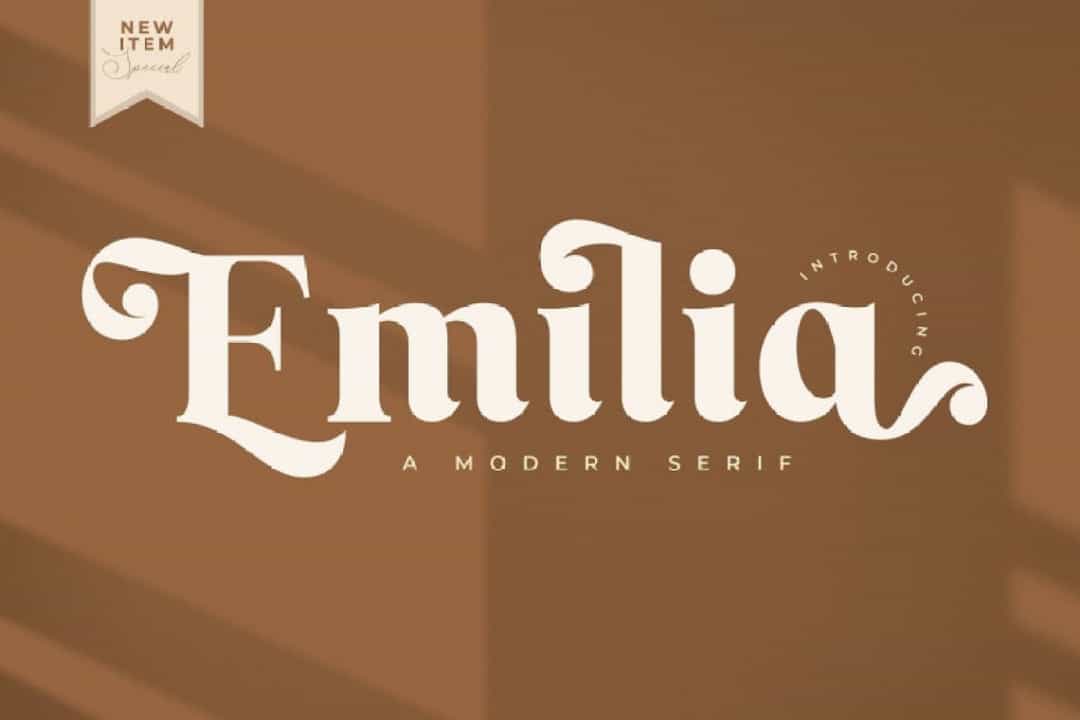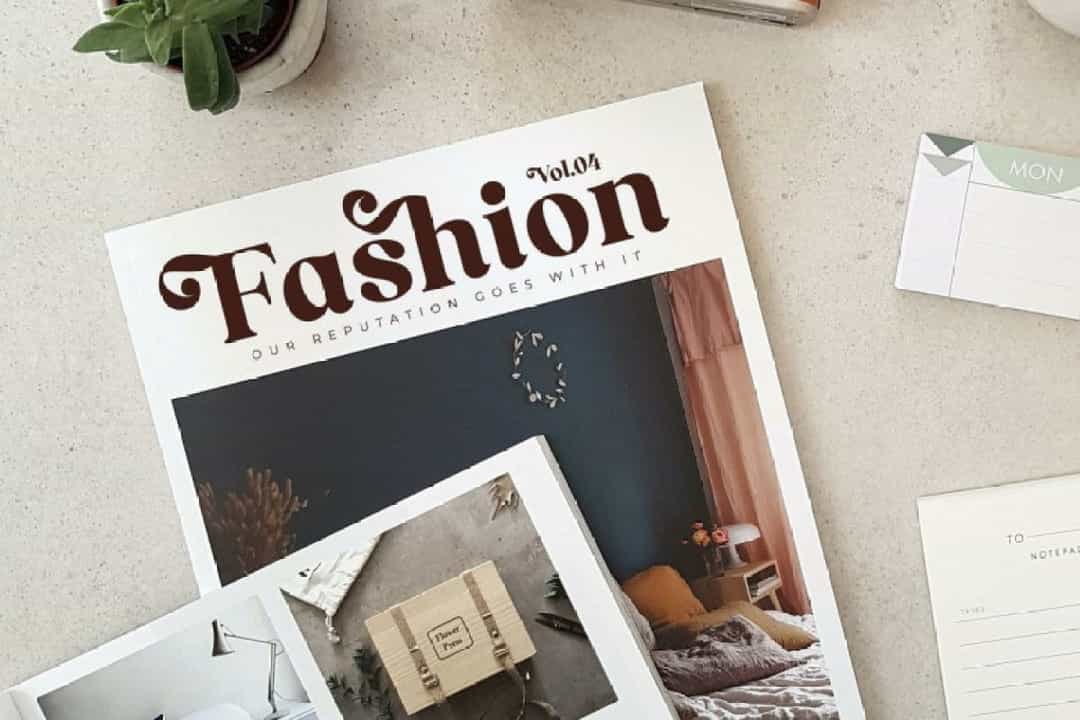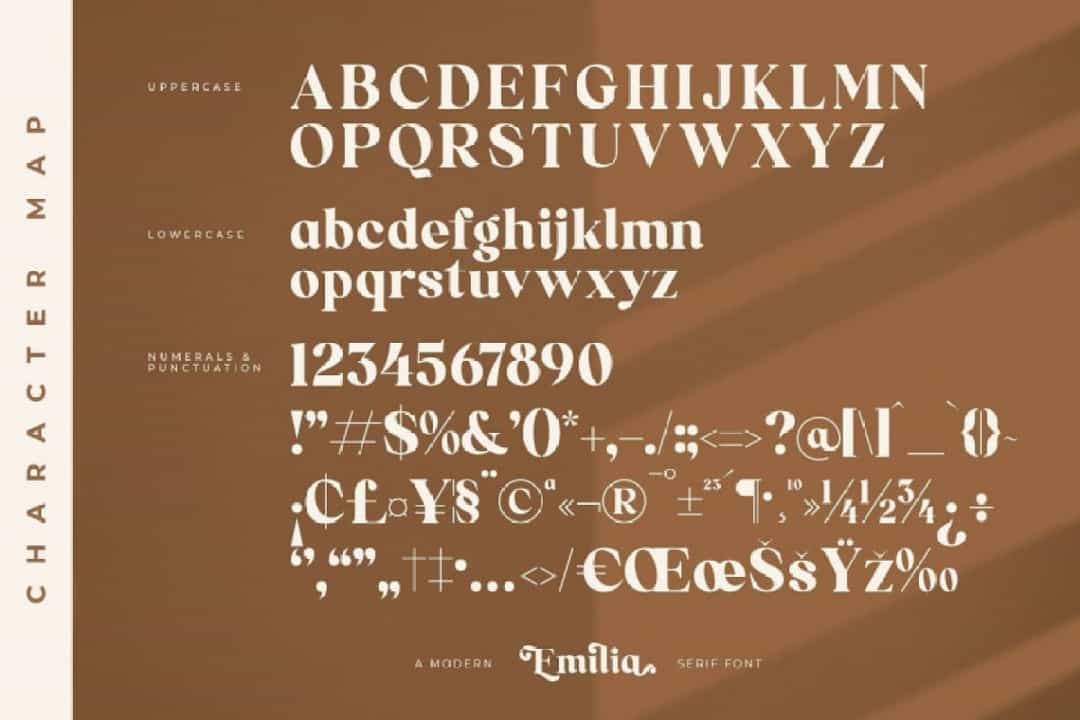
Emilia Font was created by Storytype as a modern serif typeface with its own distinct style and modern appearance, perfect for luxurious logos, movie or book styles, fashion label clothing labels, magazines lettering and quotes – among other uses.